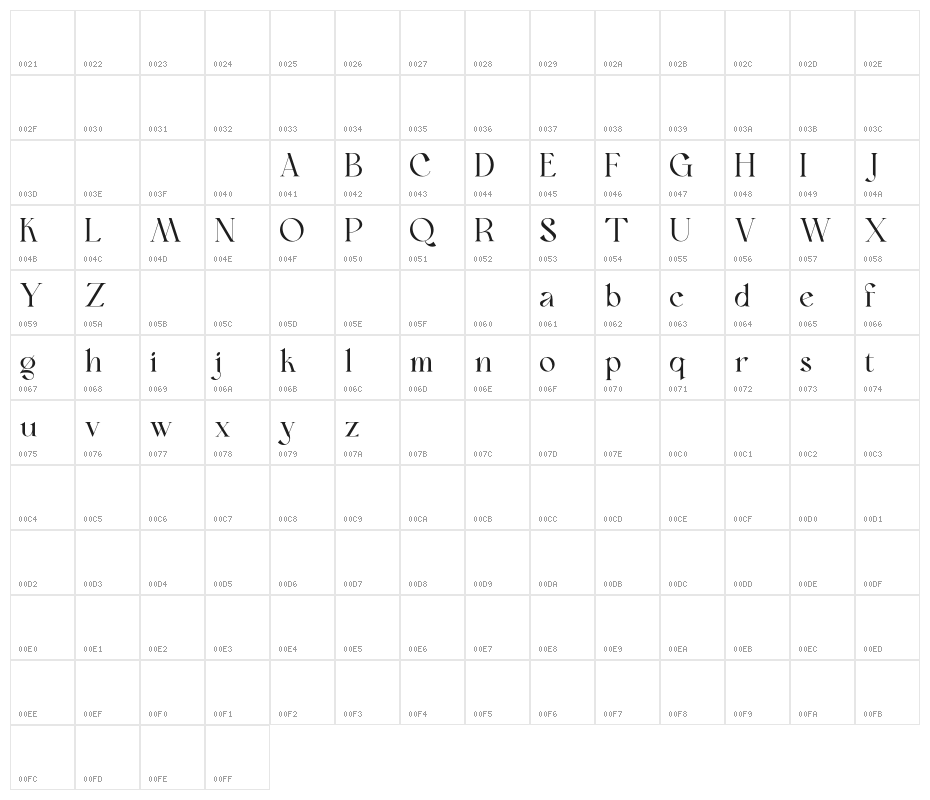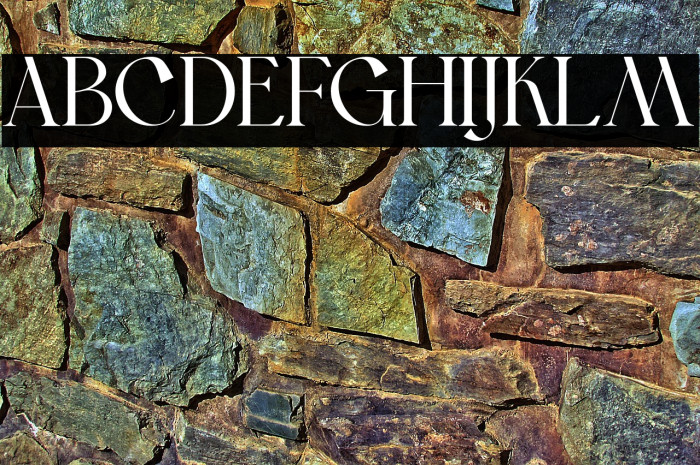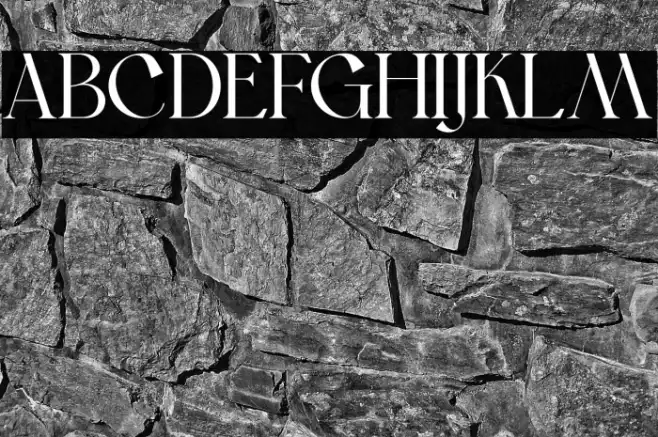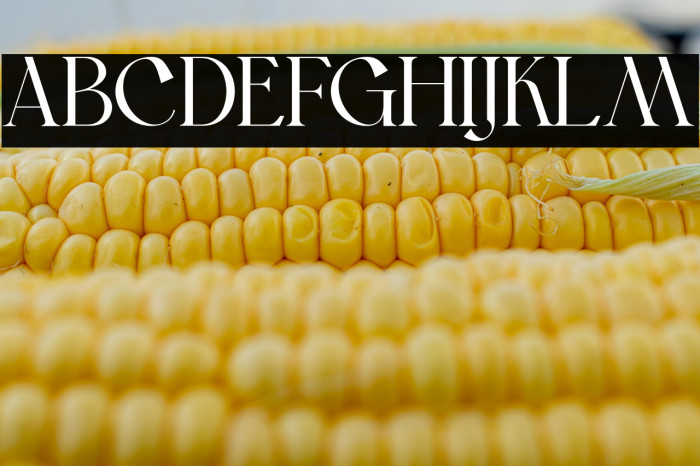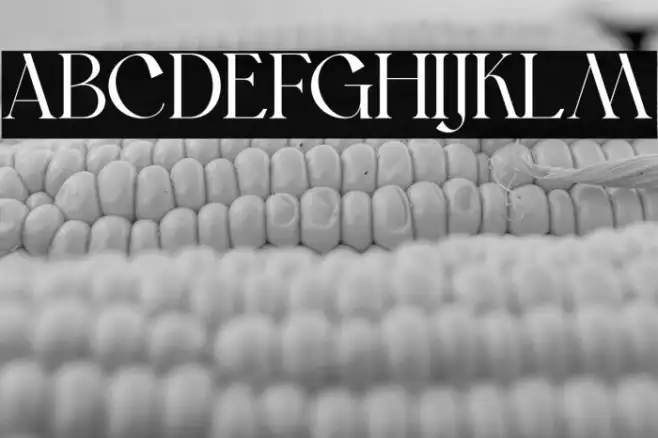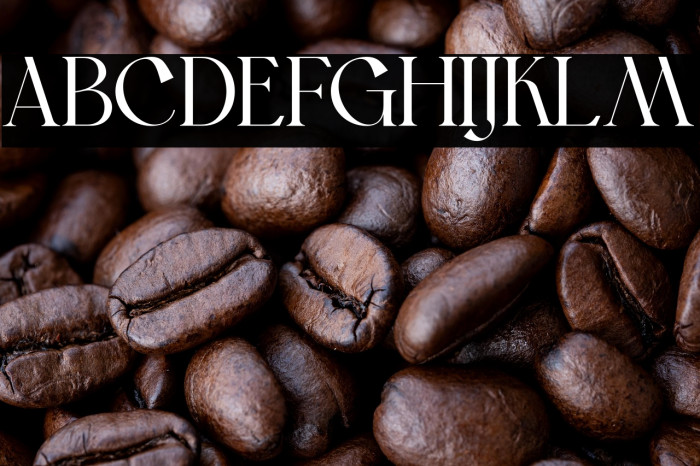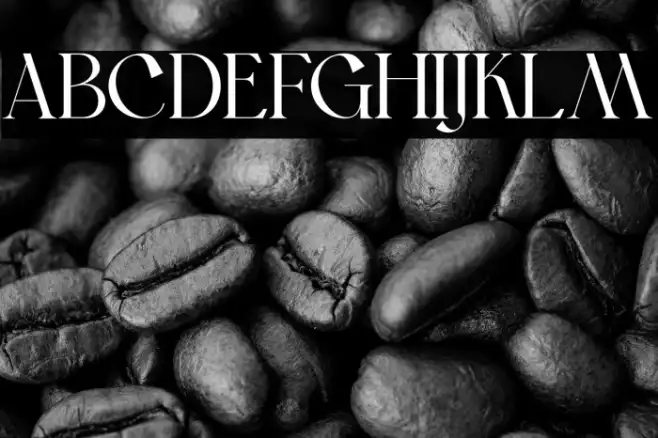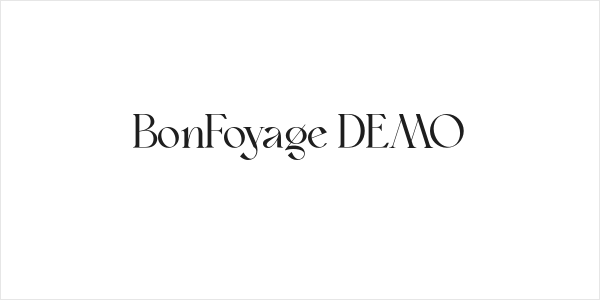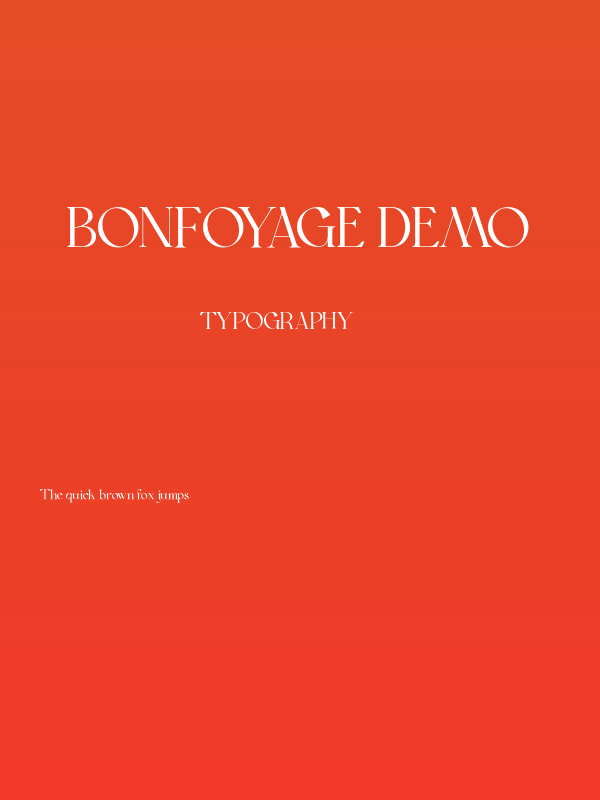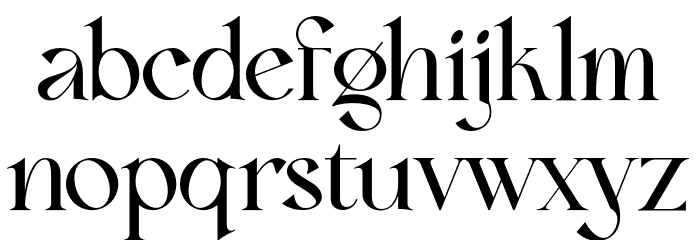
BonFoyage DEMO Font
This font features a sophisticated and elegant design, characterized by its high contrast between thick and thin strokes. The serifs are sharp and pronounced, giving it a classic yet modern feel. The uppercase letters are tall and commanding, while the lowercase letters maintain a graceful flow. The overall style is reminiscent of traditional serif fonts but with a contemporary twist, making it suitable for both formal and creative applications. The unique design elements, such as the distinctive curves and angles, add a touch of flair and personality to the text.
Use CaseHeadlines, Logos, Editorial design
Proposed ProjectsIdeal for luxury branding, editorial design, wedding invitations, and high-end product packaging.